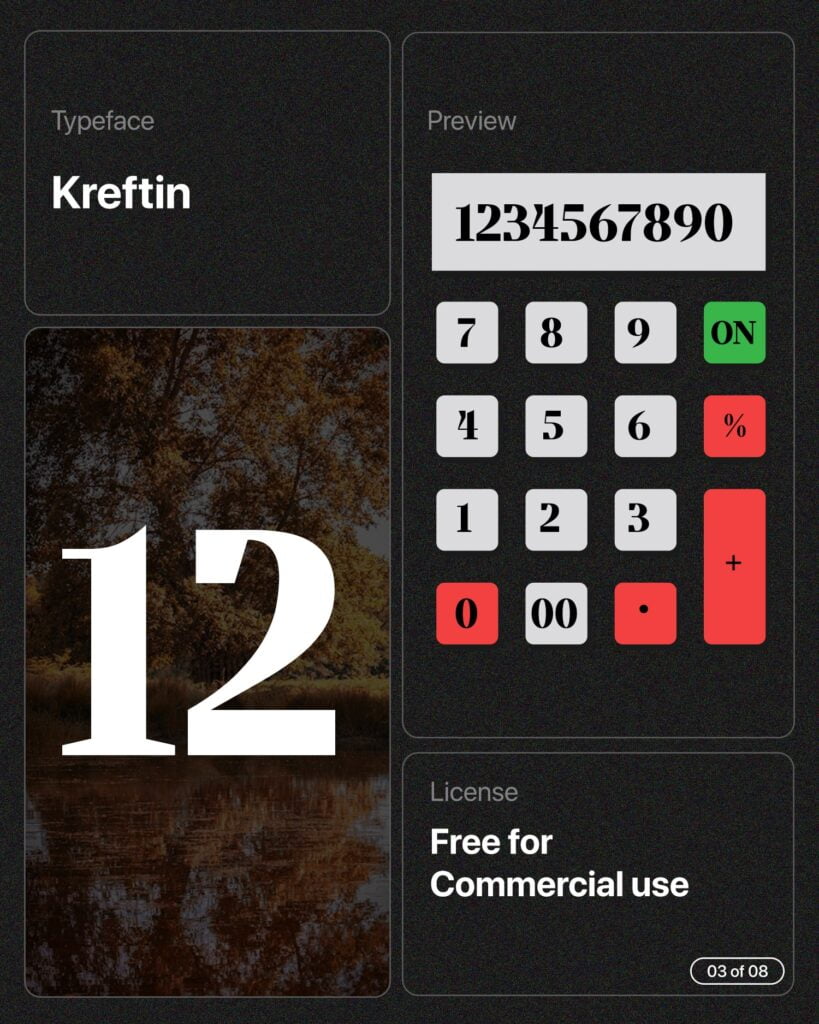
While designing Birthday Invites, Wedding invitations, Event Posters, Brochures having page number and more you need fonts with good numbers.
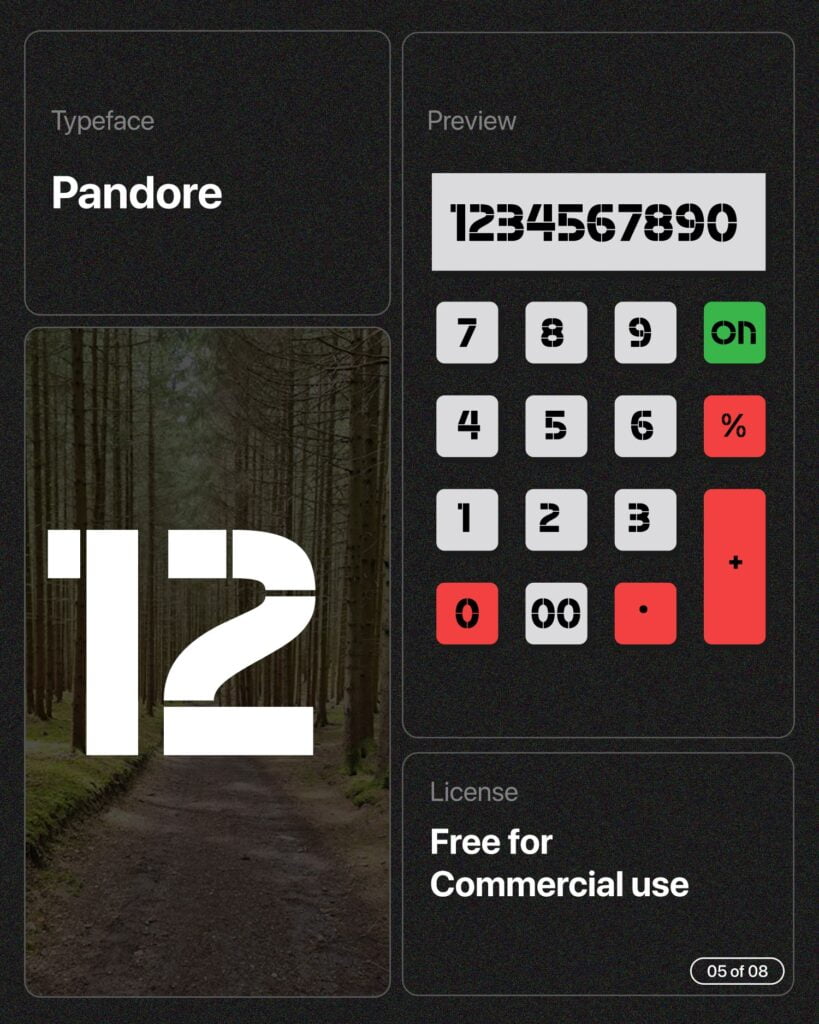
Pandore
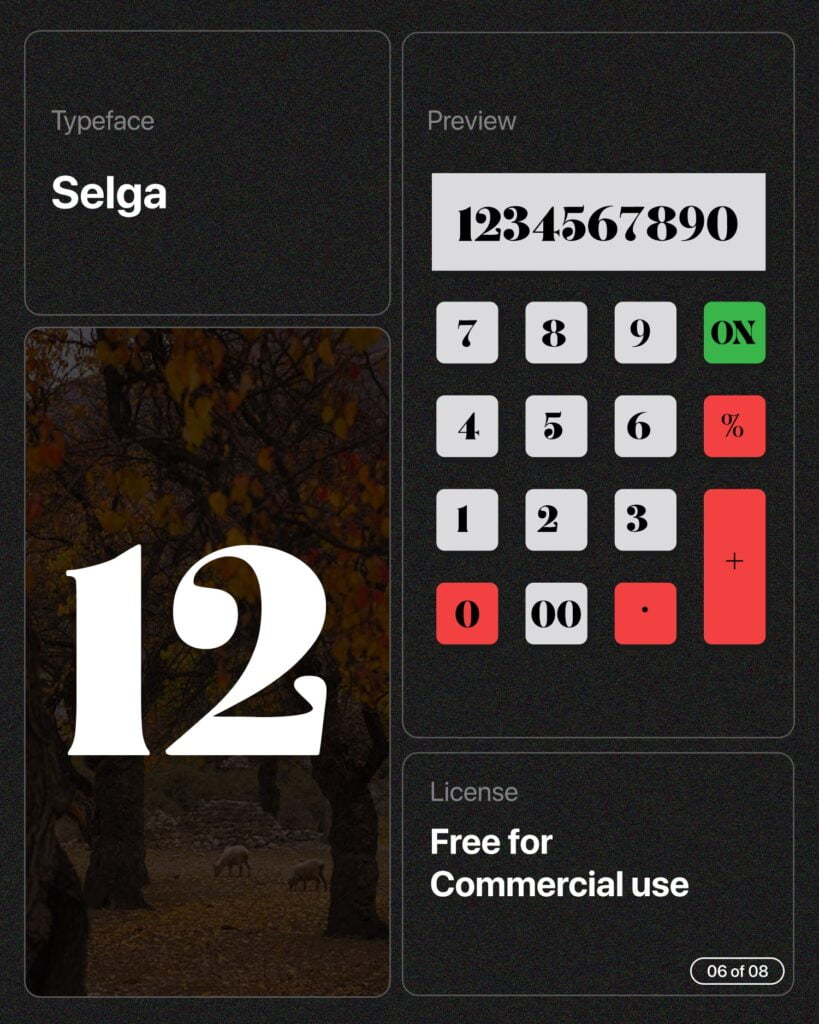
Selga
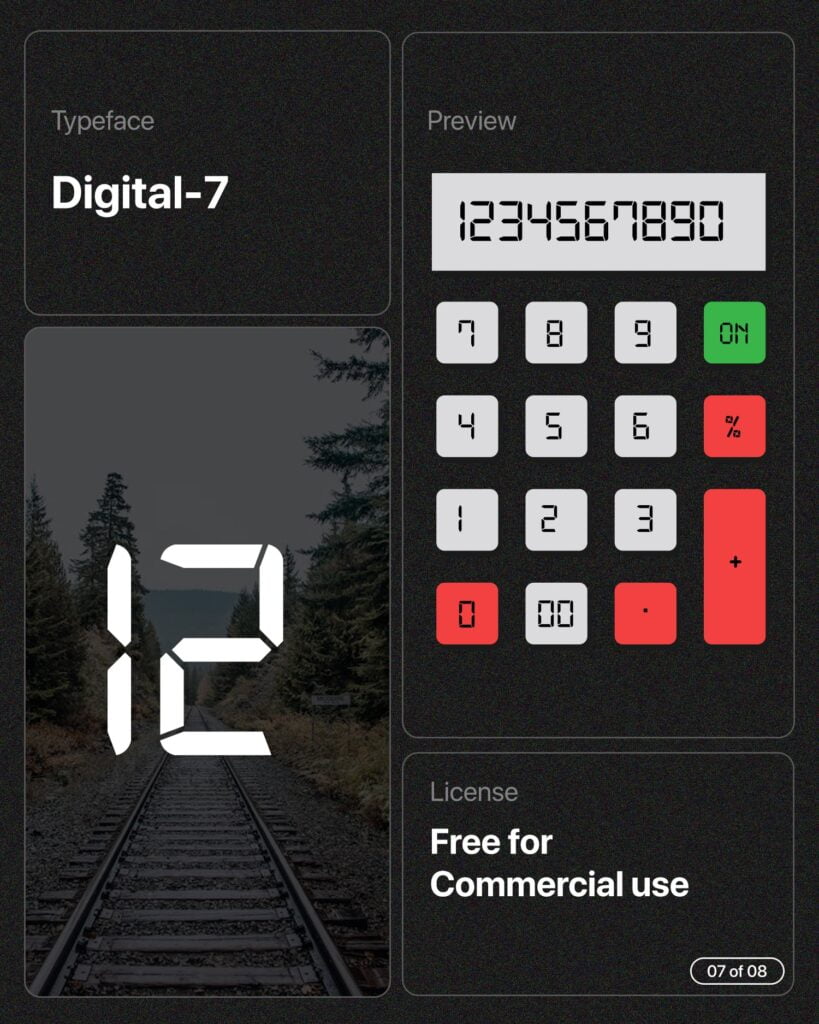
Digital 7
Digital 7 is a font same as real calculator font
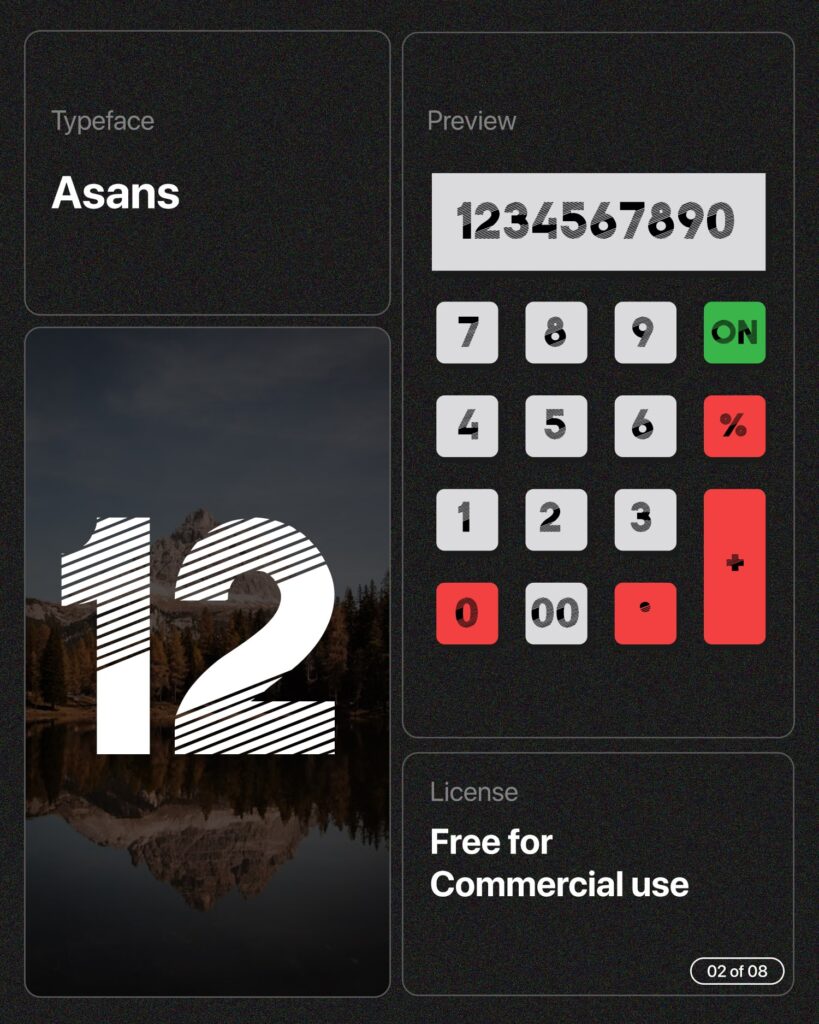
Asans